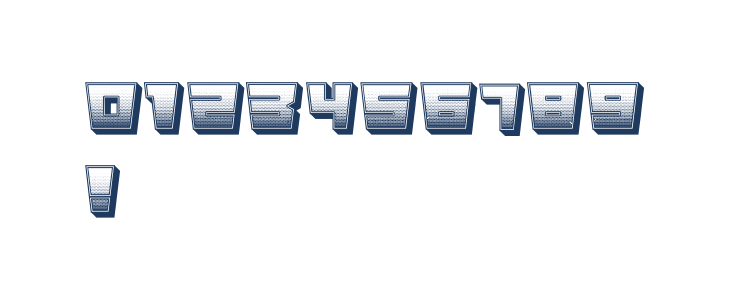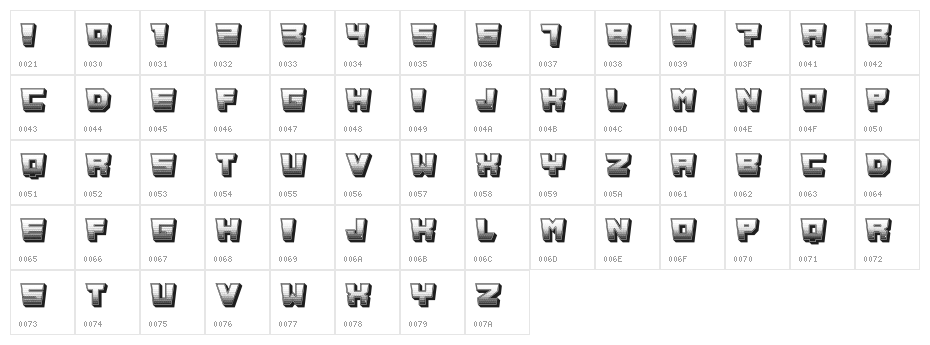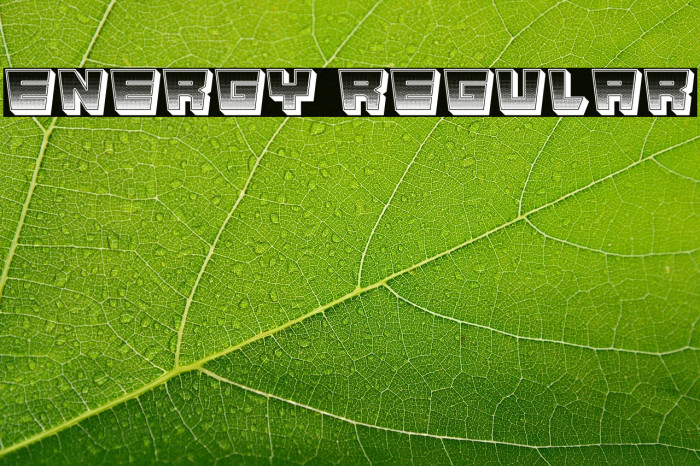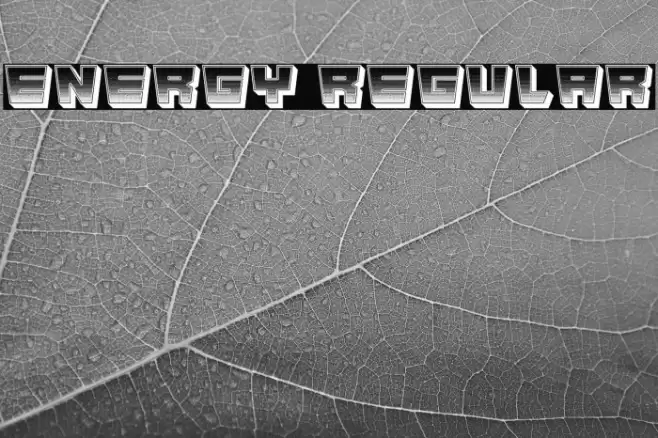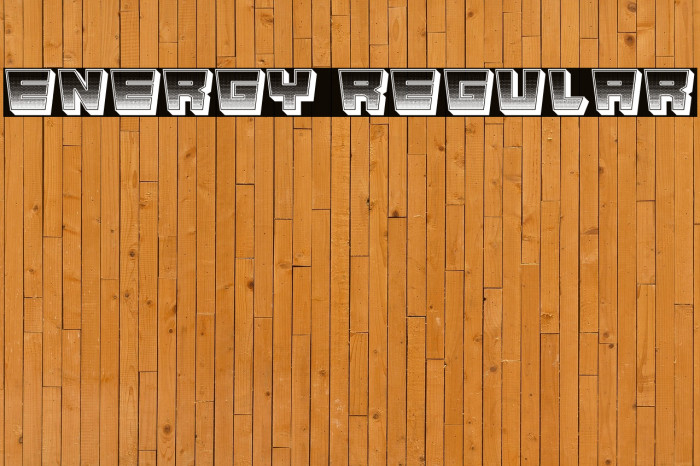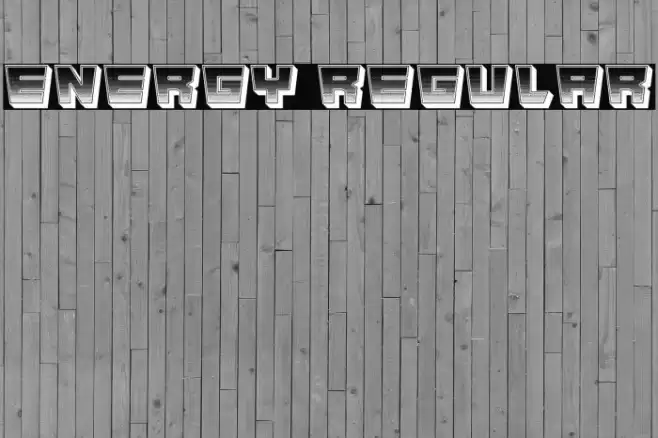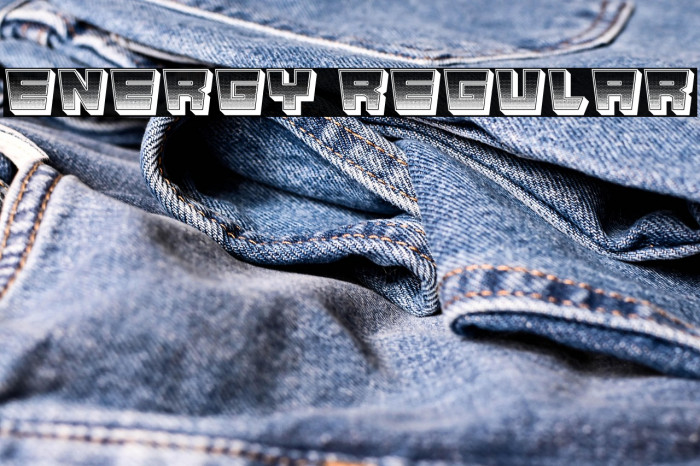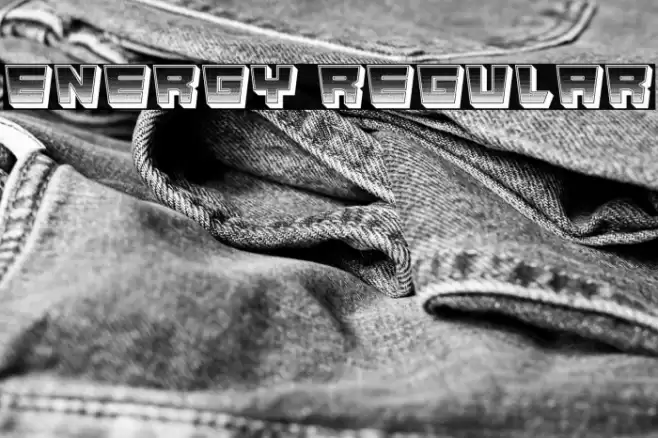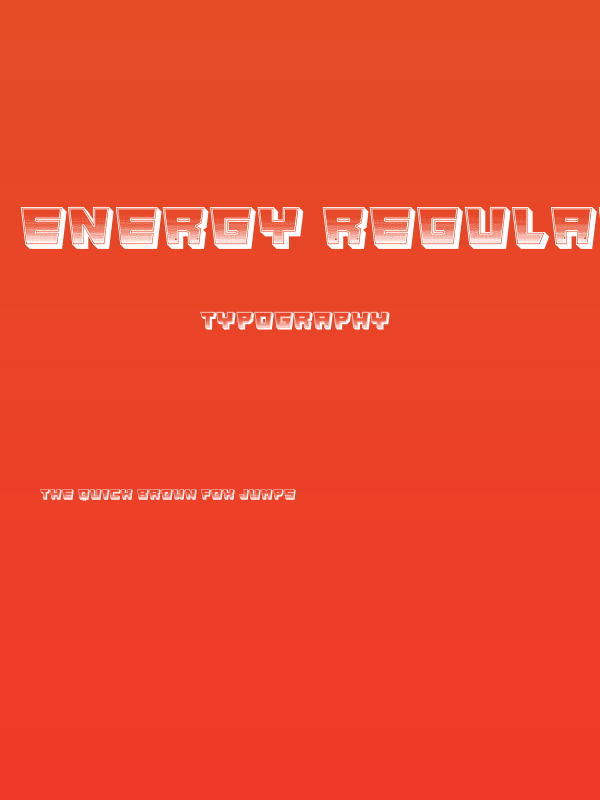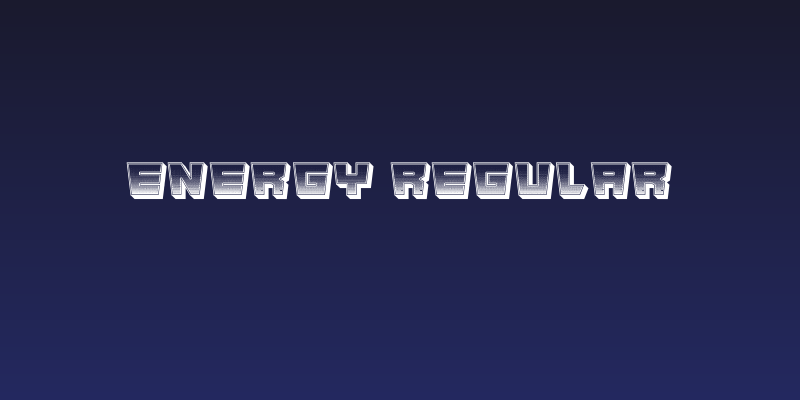
Energy Regular Font
Energy Regular Description
This font features a bold, three-dimensional design with a strong, industrial aesthetic. Each character is crafted with a blocky, geometric shape, giving it a robust and powerful appearance. The shading and gradient effects create a sense of depth, making the letters appear as if they are popping off the page. The style is reminiscent of retro-futuristic designs, combining elements of vintage and modern aesthetics. The uppercase and lowercase letters maintain a consistent style, ensuring uniformity across the typeface. The numbers and special characters are equally bold and dynamic, making them stand out prominently.
Overall StyleRetro-Futuristic
Proposed ProjectsIdeal for projects that require a strong visual impact, such as posters, video game titles, or branding for tech and industrial companies.